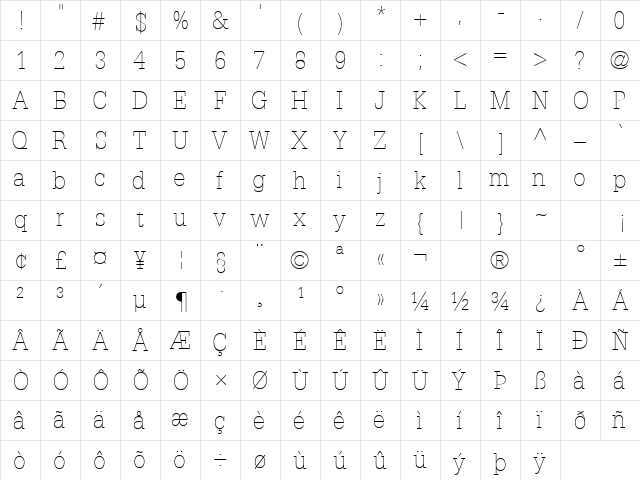
InstallationLightSSK Regular
Design Context for InstallationLightSSK Typeface
InstallationLightSSK takes a measured approach to typography — its balanced proportions and neutral character make it a reliable workhorse for both digital and print work. Its slender proportions lend an understated elegance to any composition.